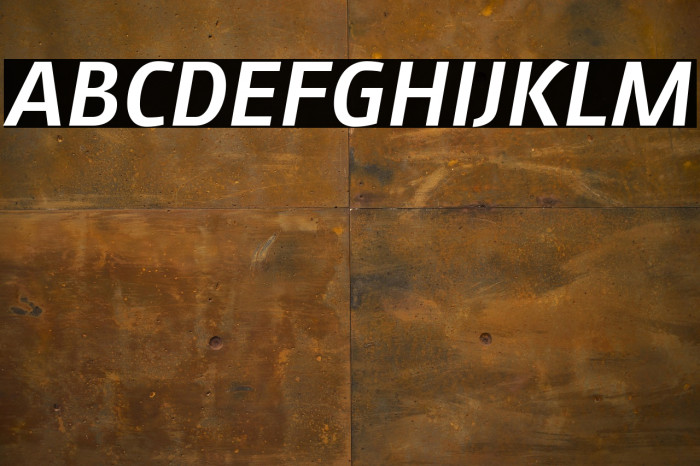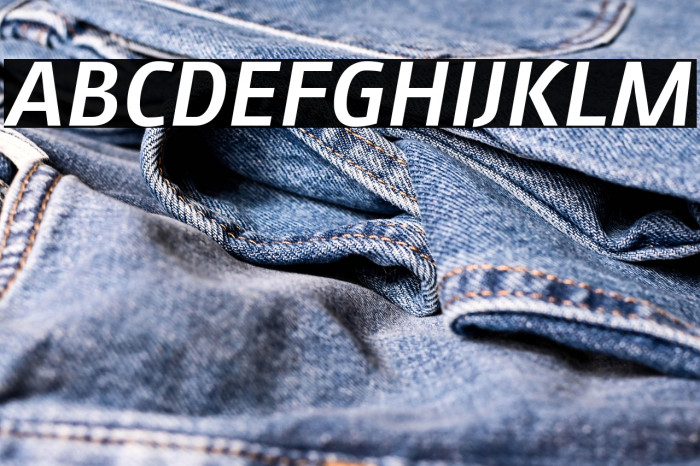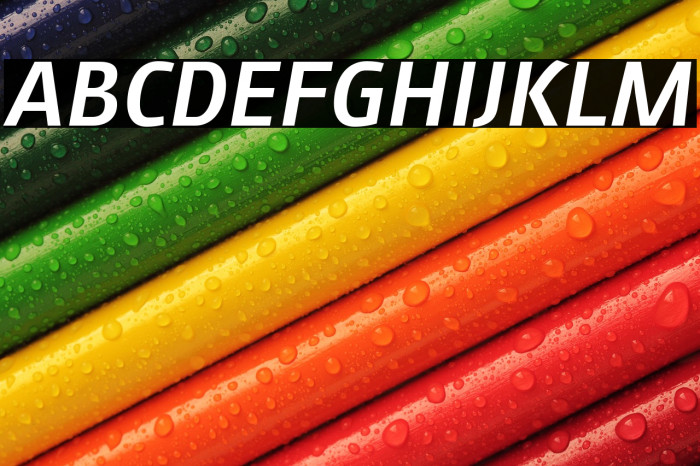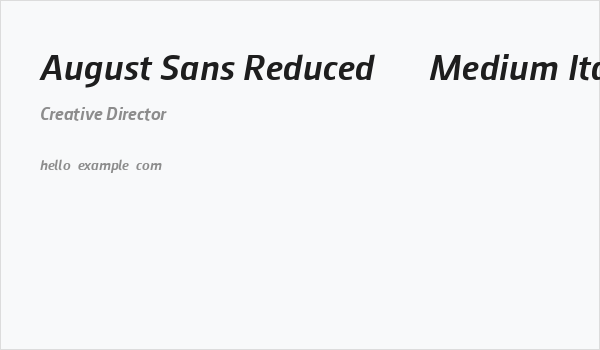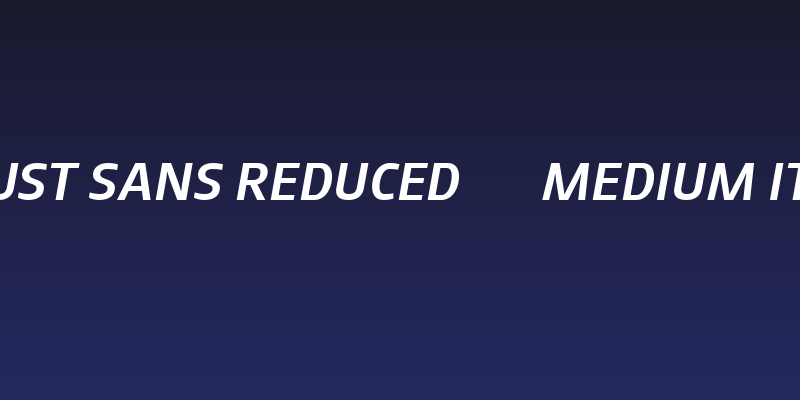
August Sans Reduced 66 Medium Italic Font
August Sans Reduced 66 Medium Italic Description
This font features a clean, modern sans-serif style with a slight italic slant, giving it a dynamic and forward-moving appearance. The characters are well-proportioned with a medium weight, providing a balanced look that is neither too heavy nor too light. The strokes are smooth and consistent, contributing to its readability. The overall design is sleek and professional, making it suitable for a variety of applications. The character spacing is normal, ensuring clarity and legibility across different sizes. This font's contemporary aesthetic makes it versatile for both digital and print media.
| Proposed Projects | Ideal for branding, advertising, web design, and editorial layouts. |